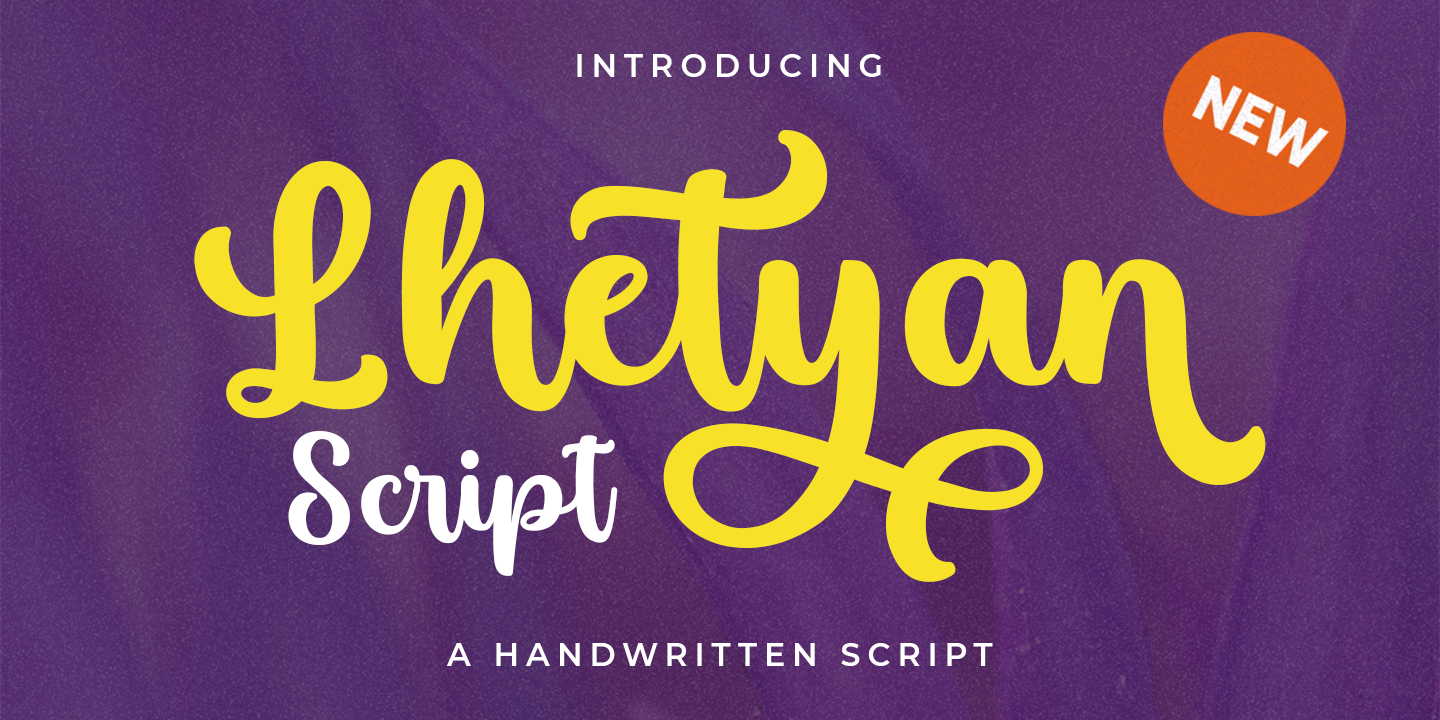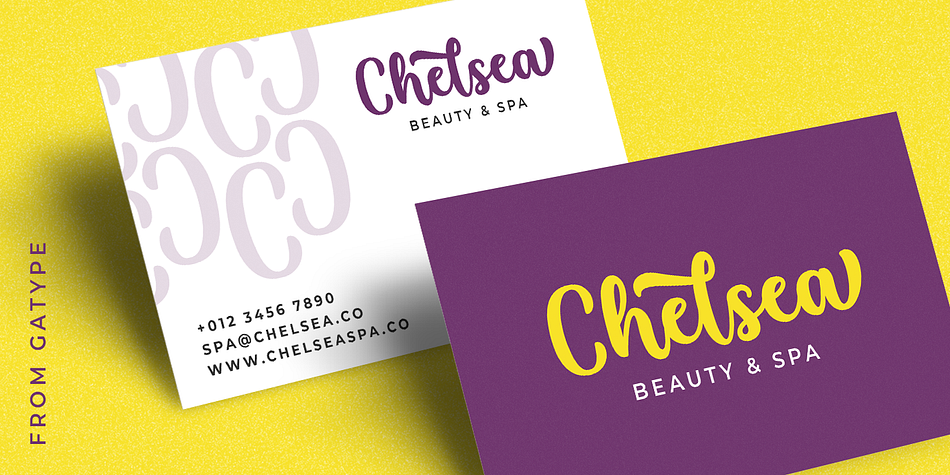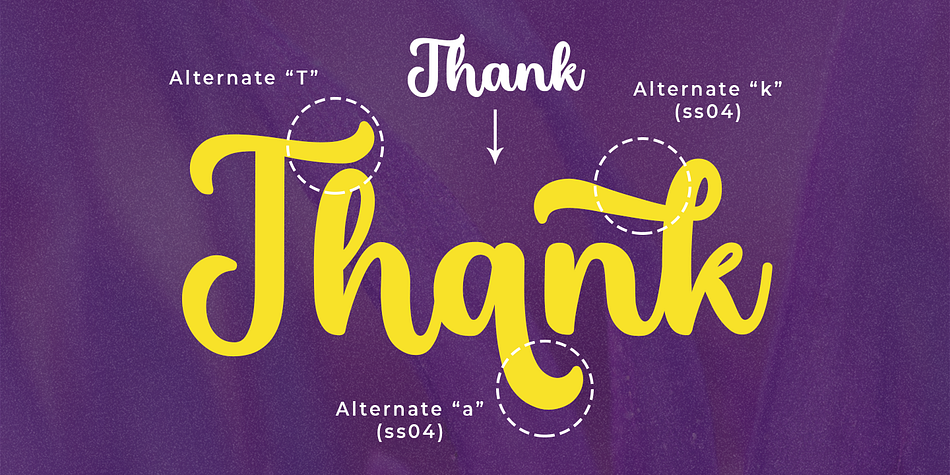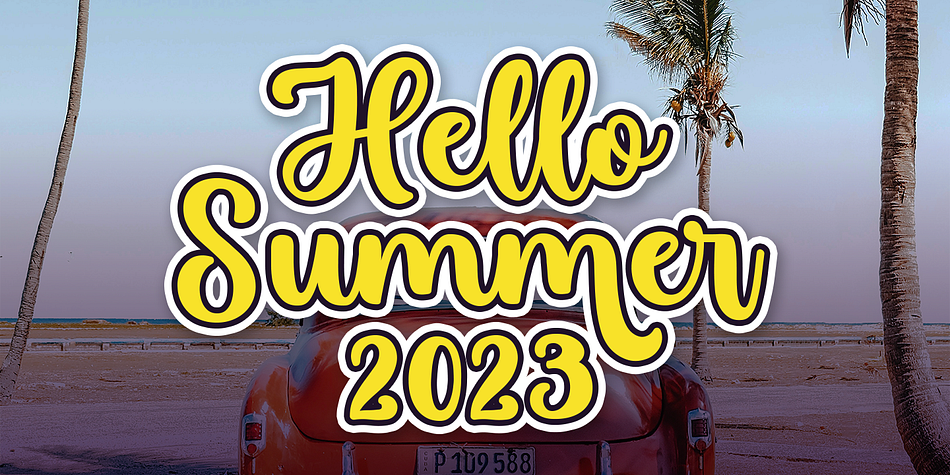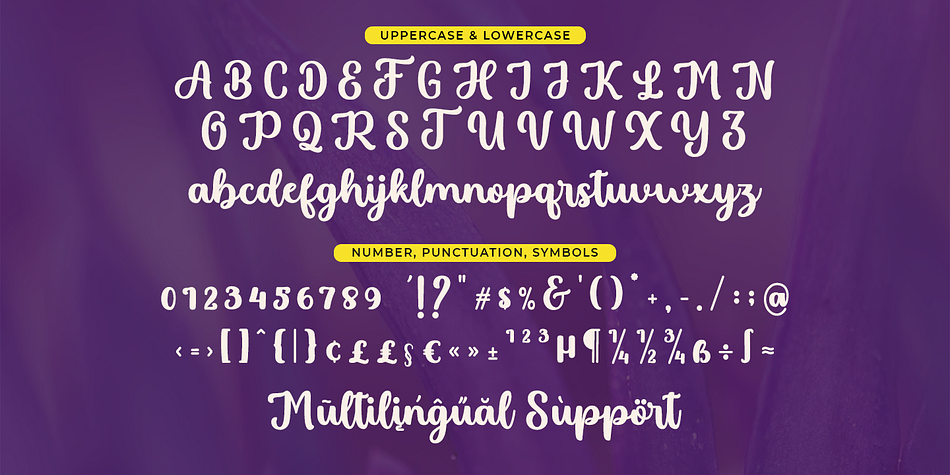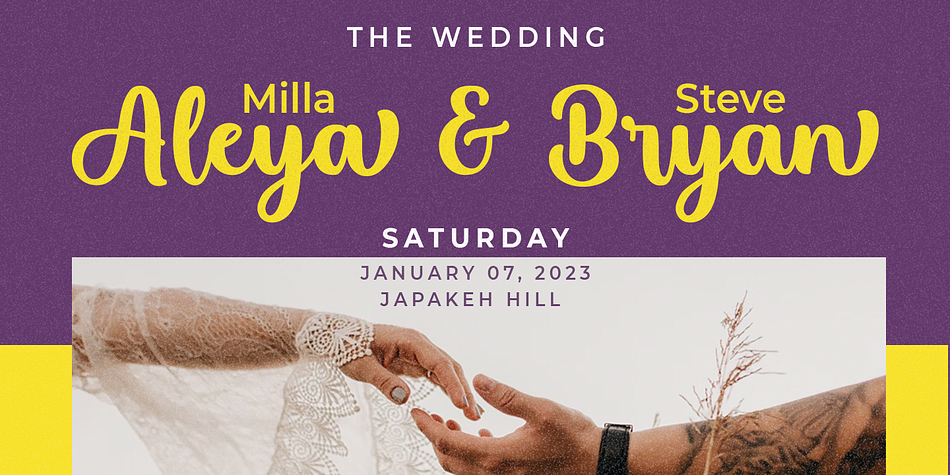
Lhetyan
Lhetyan is a brush script font family published by Gatype.
Lhetyan Script is a great family of brushes for all kinds of display uses from packaging to posters & logos to headlines. Lhetyan as a basic letterform is bold and clear and there are many alternatives for a more customized look. This typeface comes in uppercase, lowercase, punctuation, symbols & numbers, alternative style sets, binders, etc. Also supports multilingual and PUA encoded already.